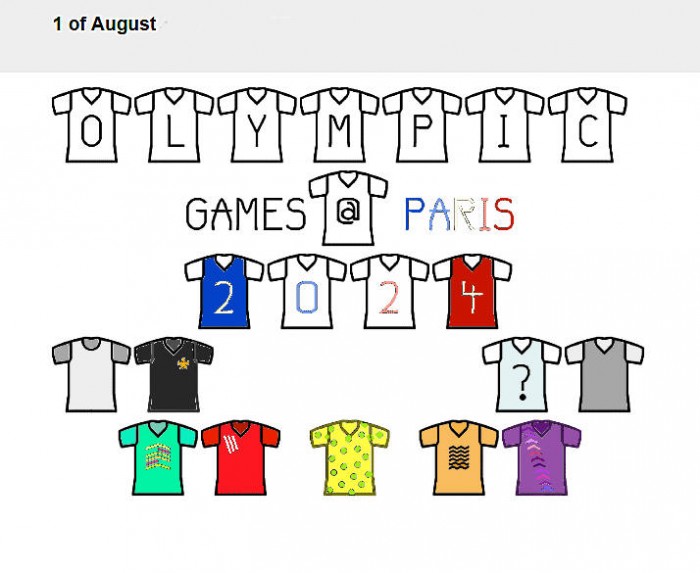
Just in time for the "Olympic August", this font is perfect for all sports enthousiasts specially for(followers of) team sports. The font is great for posters and invitations, too. It is ideal for colouring in. Make a blank t-shirt with round neck line by using "[" plus "]".
in Ô, there is an extra Ŵ...
Problem: If i type a letter in between the two brackets, they aren't connected together...
All UC letters + numbers 0 to 20 have their shirt. ( ) are as usual and make sense only when used with shirtless glyphs LC. Special idea > [insert no space here] = a complete (different to the % design) shirt.
xBox, thanks for spotting the "w" problem. I deleted the glyph
@Lou D. (Lou FoxyBun): “OLYMPIC GAMES @ PARIS 2024 ?” (2024-08 02 till 18, actually.)
@Aeolien: complicated generator, albeit funny (esp. w/ saturated colors).